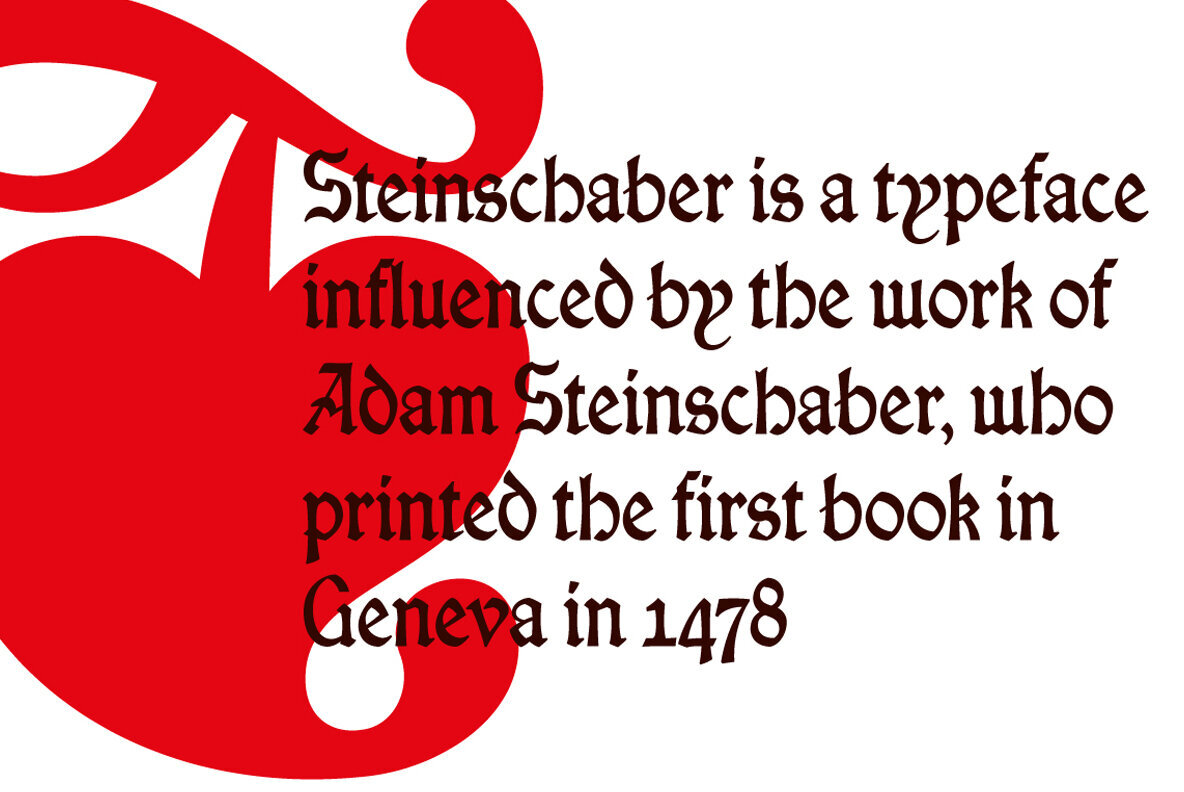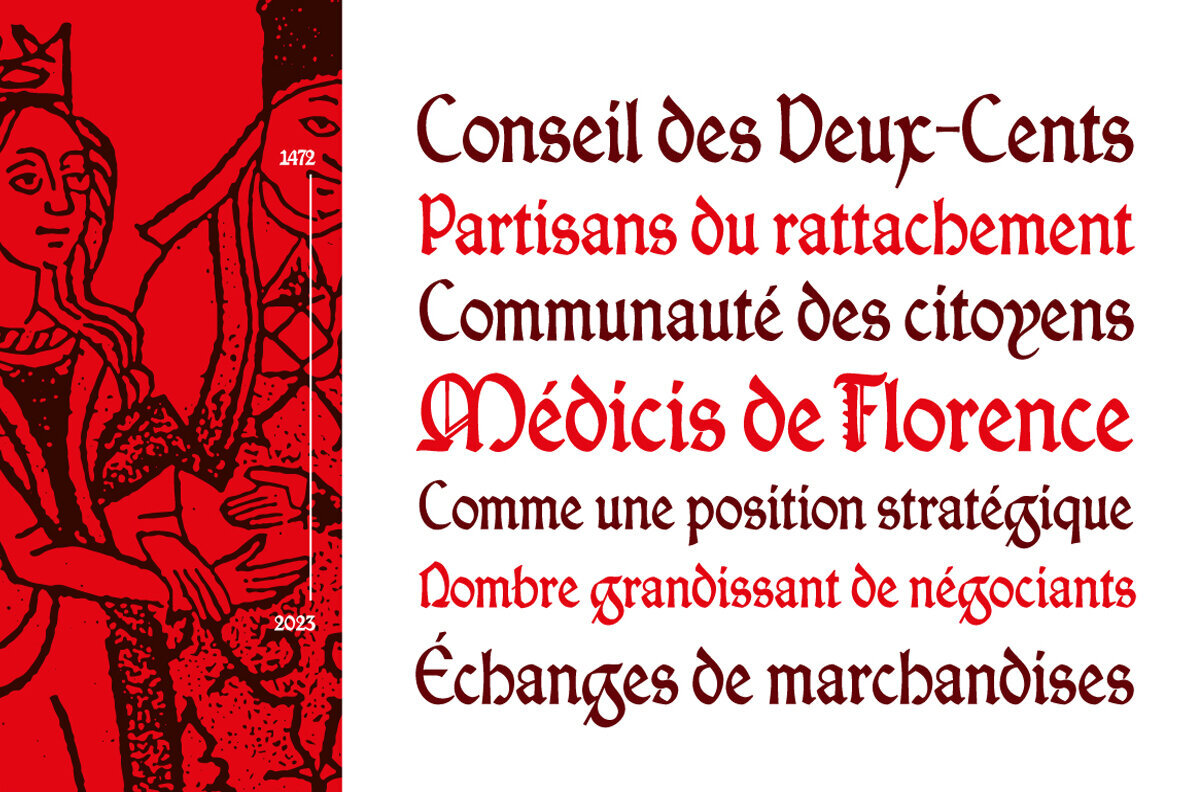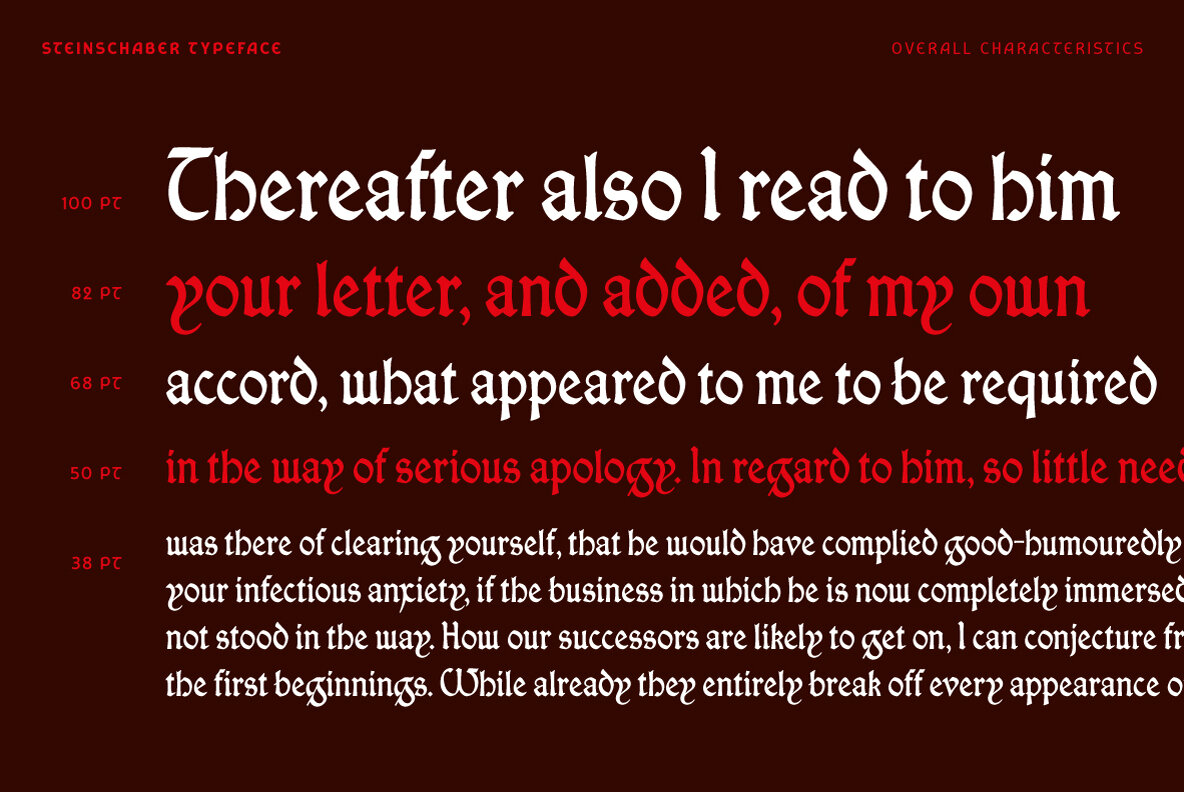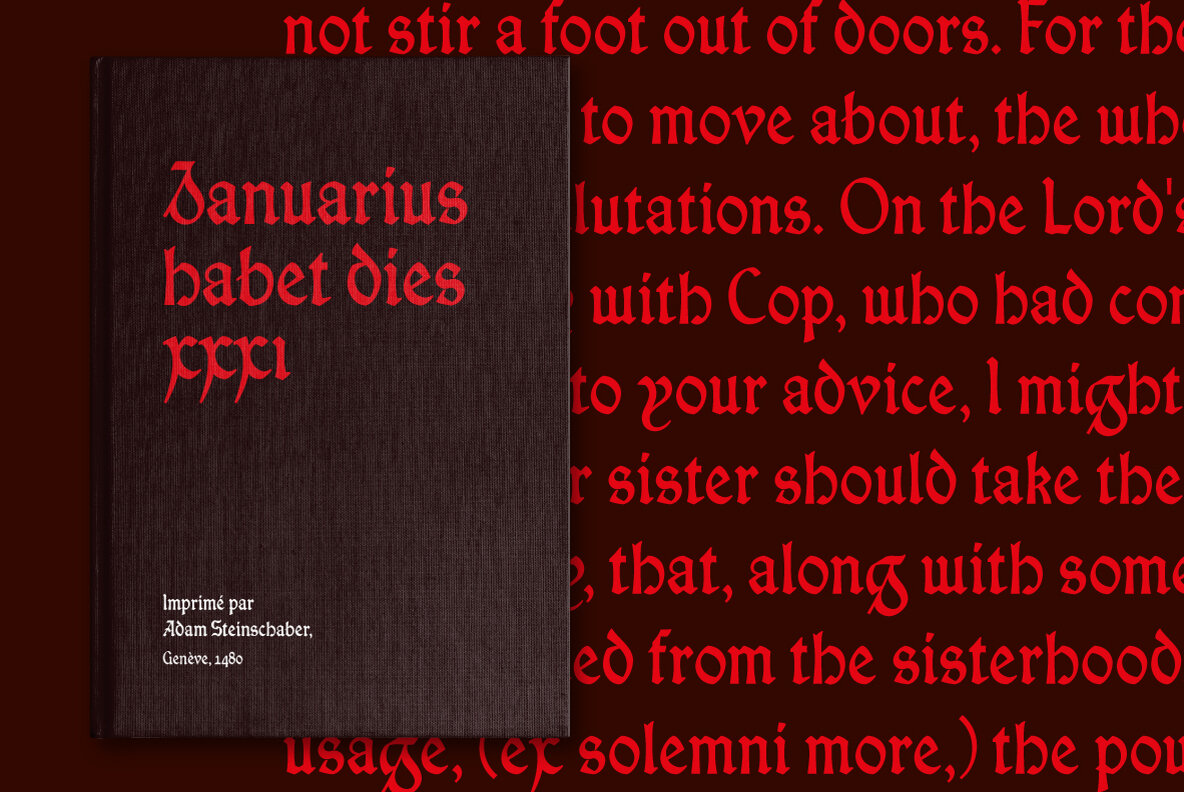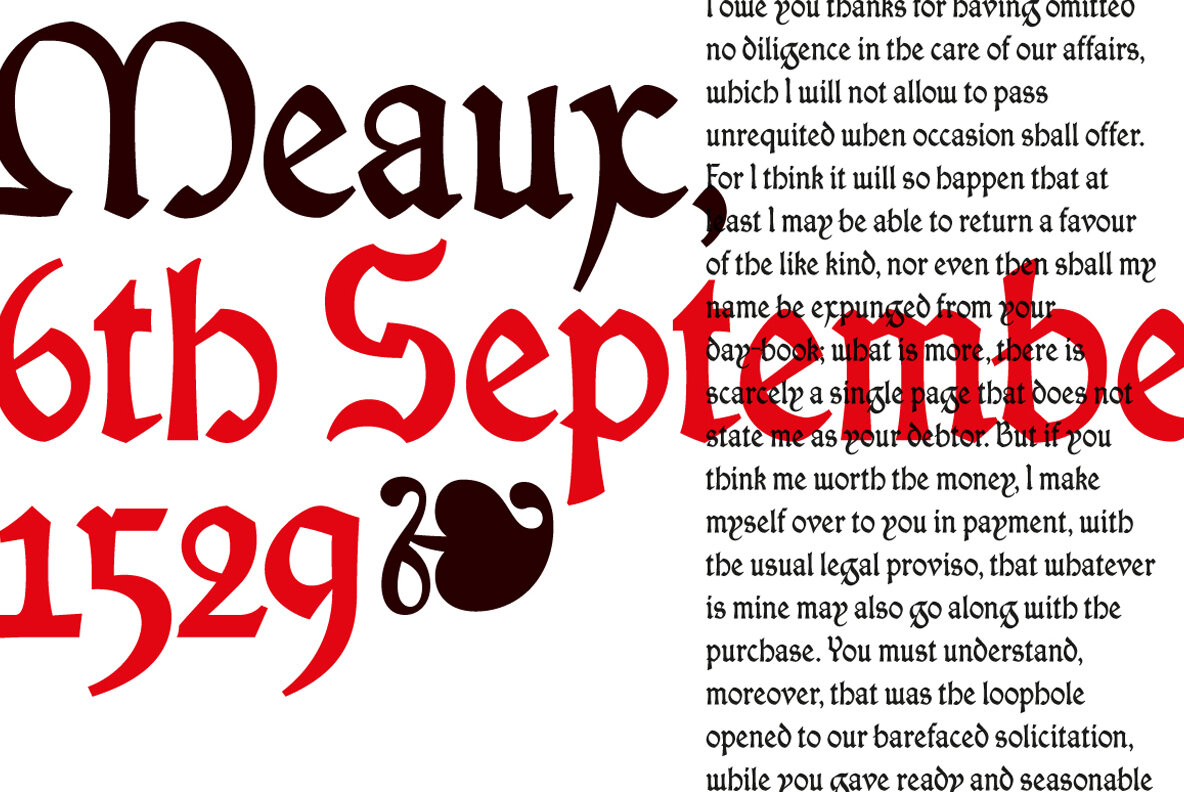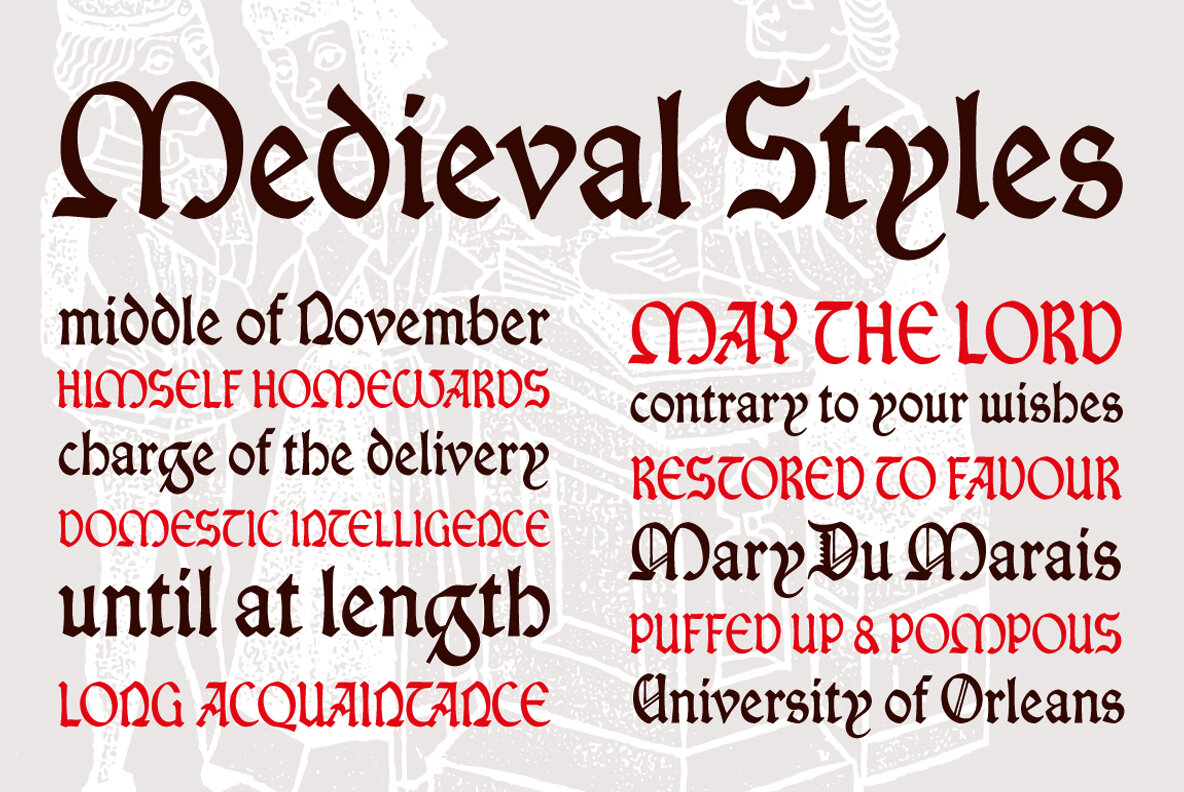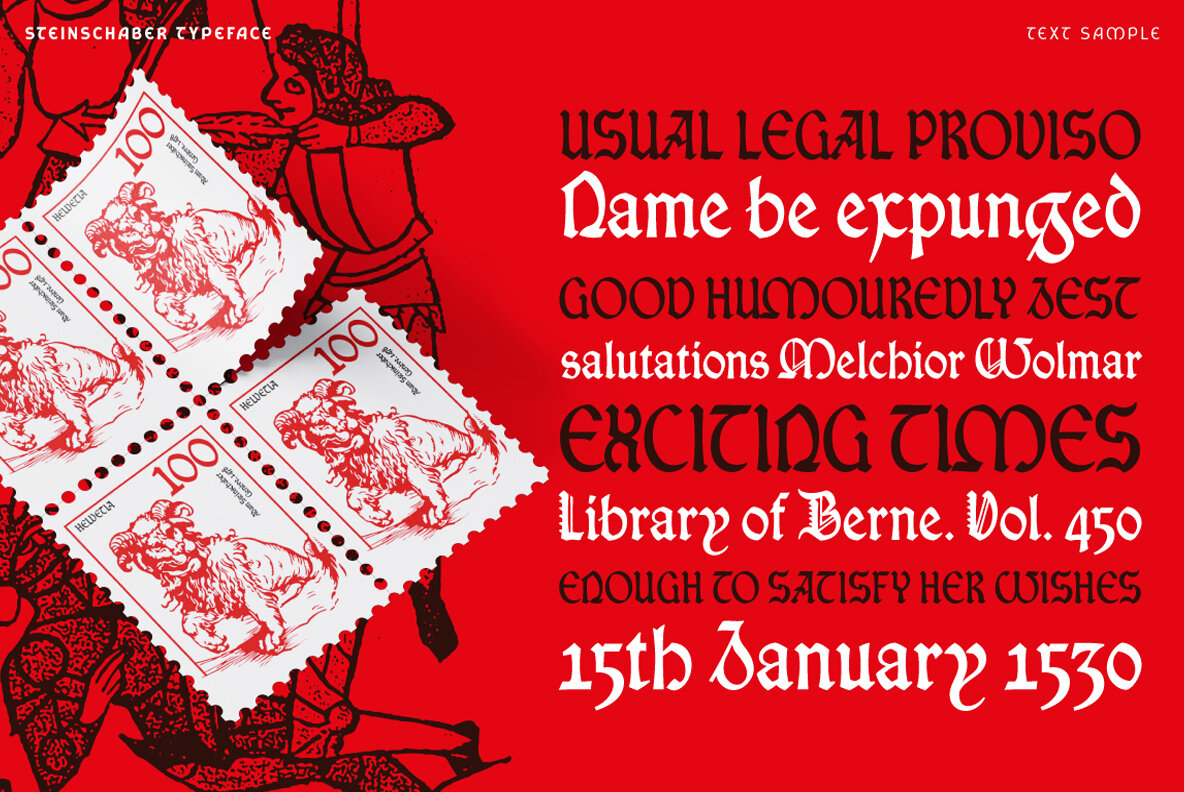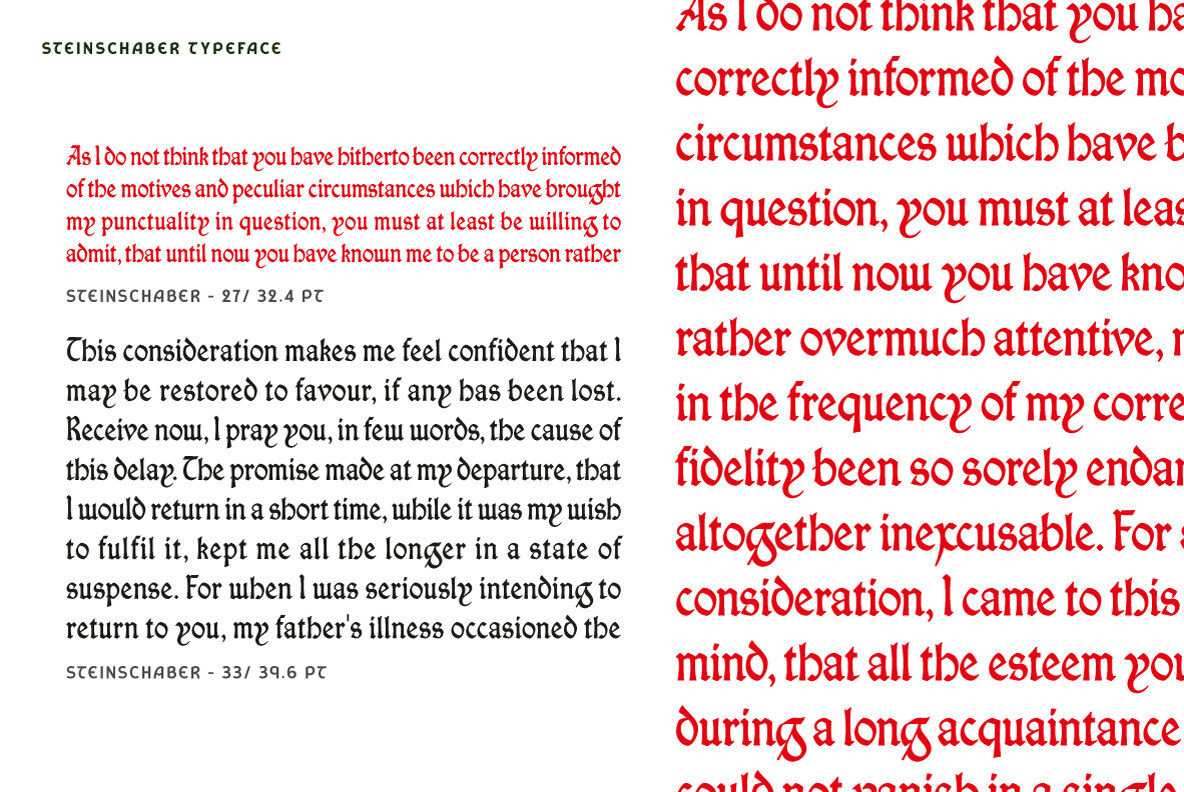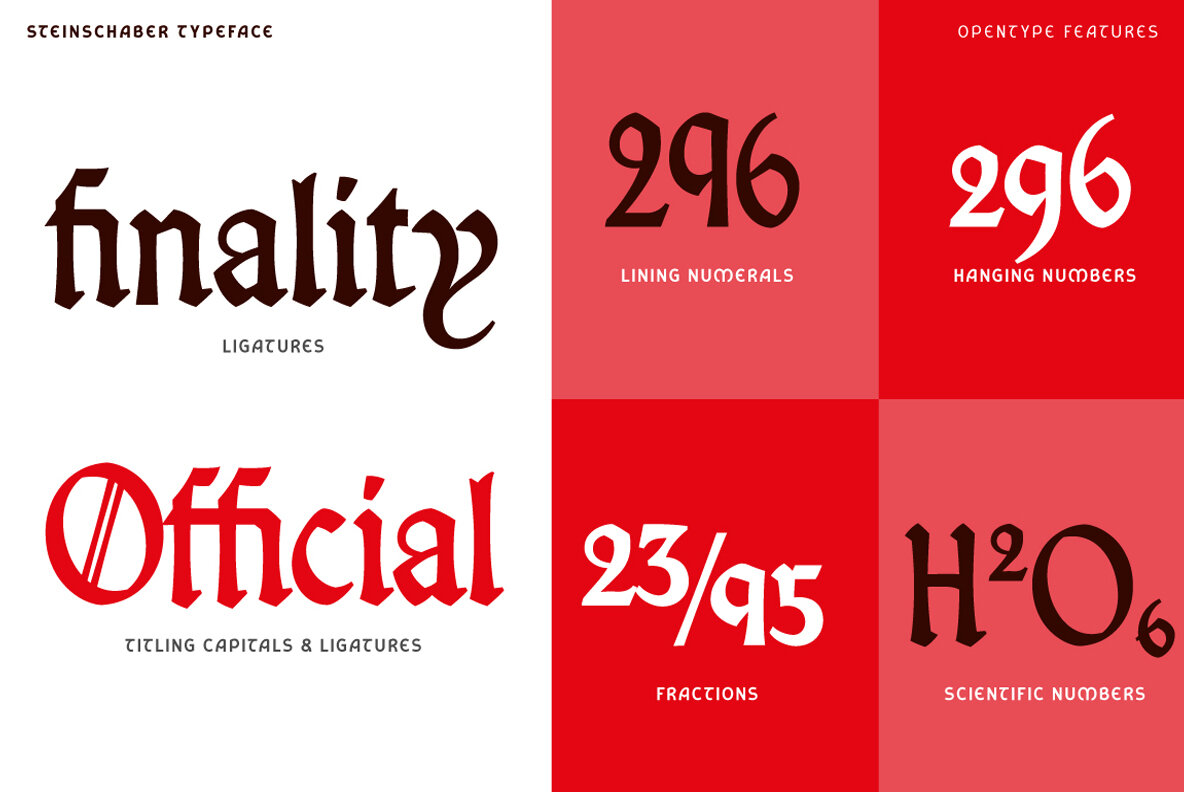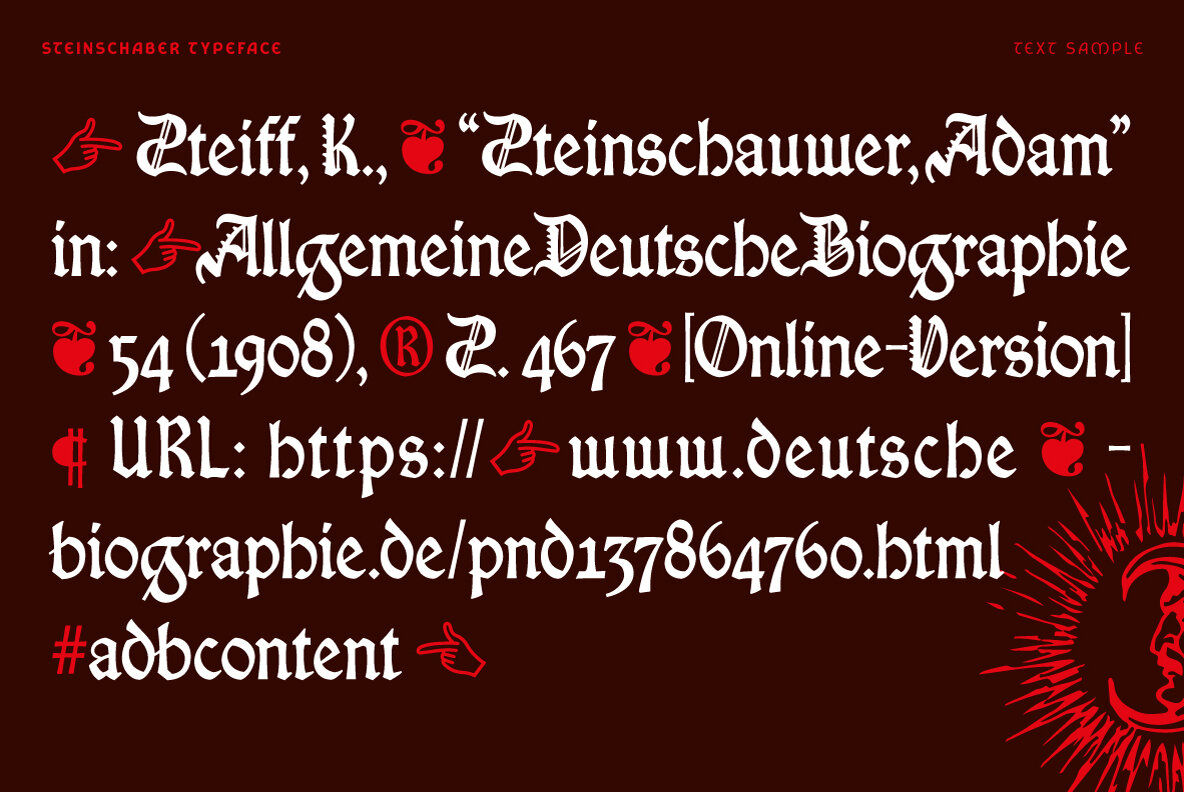
Steinschaber Font
Steinschaber Regular
Steinschaber is a single weight, display typeface based on the blackletter Rotunda style used by the first printer of Geneva. Through its quirky letter forms, pronounced contrast and diagonal axis, it offer a unique style that could be used as a historical artefact or integrated into a more contemporary composition. Through the Opentype features, a secondary, Titling set of capitals letters allows further explorations for setting content. Steinschaber includes a full latin character set, a series of typographic fleurons and a range of numerals to choose from. This typeface and the secondary family, Schaberstein, are part of the Forgotten Printer collection that aims to celebrate the work and life of Adam Steinschaber who introduced printing to the city.